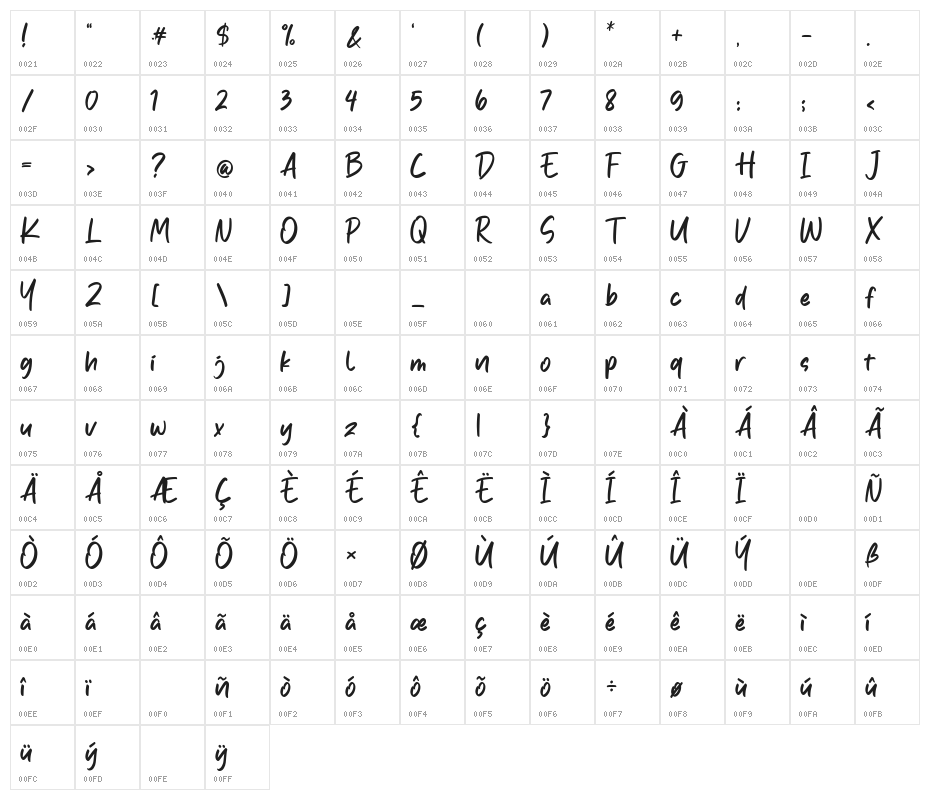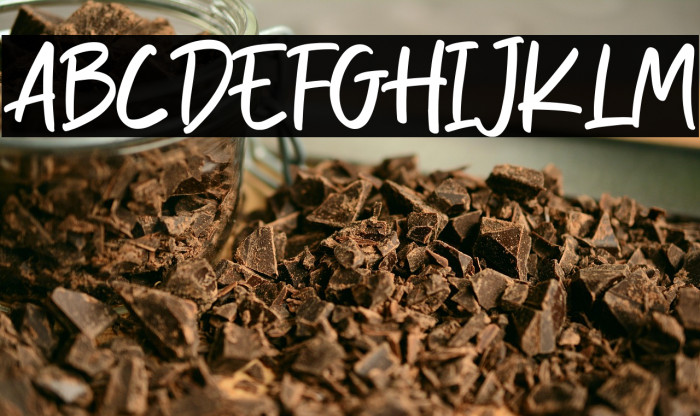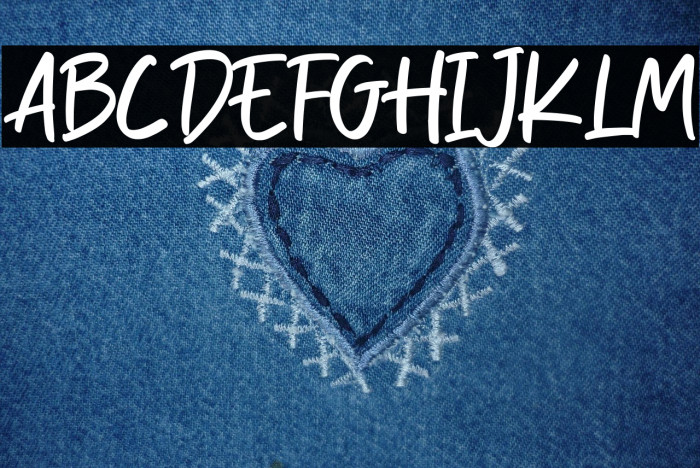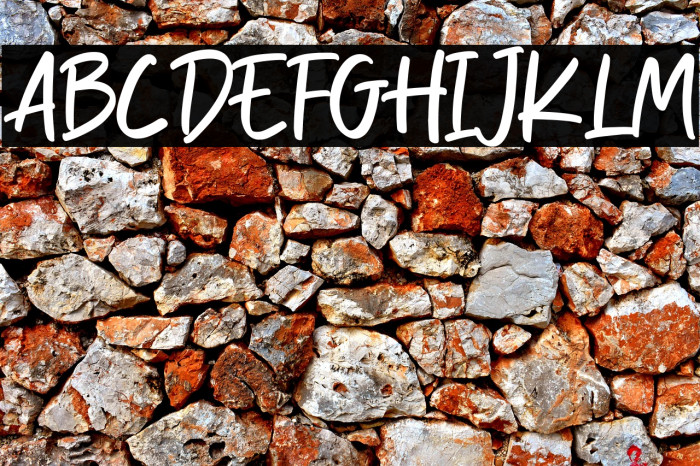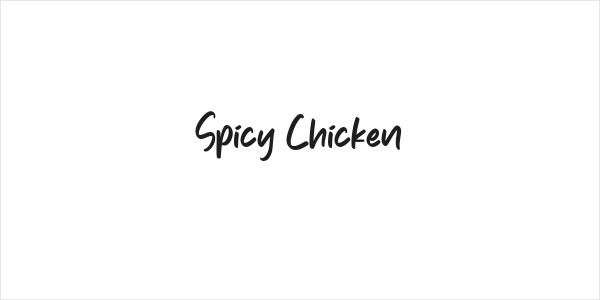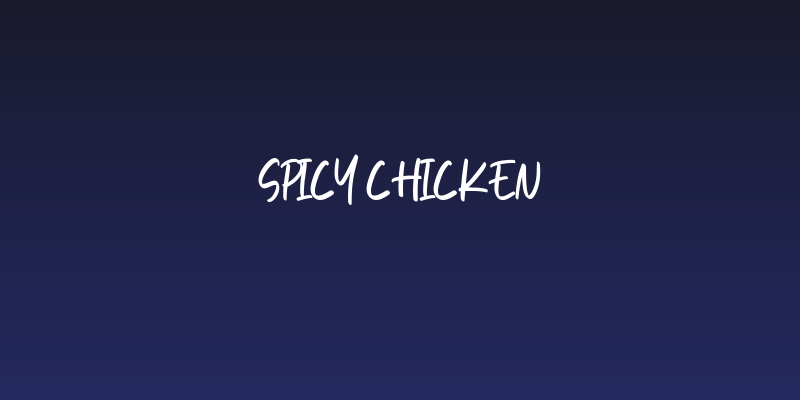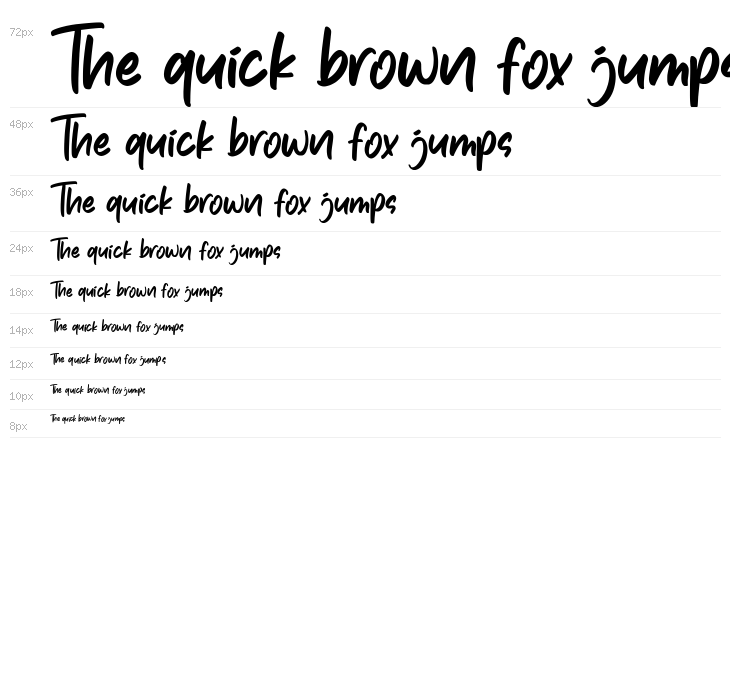
Spicy Chicken Font
Spicy Chicken Description
This font exudes a playful and energetic vibe, characterized by its bold and dynamic strokes. The letters are crafted with a handwritten style, giving them a personal and informal touch. The uppercase and lowercase letters maintain a consistent flow, with slightly exaggerated curves and angles that add to its lively appearance. The numerals and special characters are equally expressive, ensuring a cohesive look across all text elements. This font is perfect for projects that require a fun and engaging aesthetic, making it ideal for creative and casual applications.
| Proposed Projects | Ideal for greeting cards, playful branding, children's books, and social media graphics. |